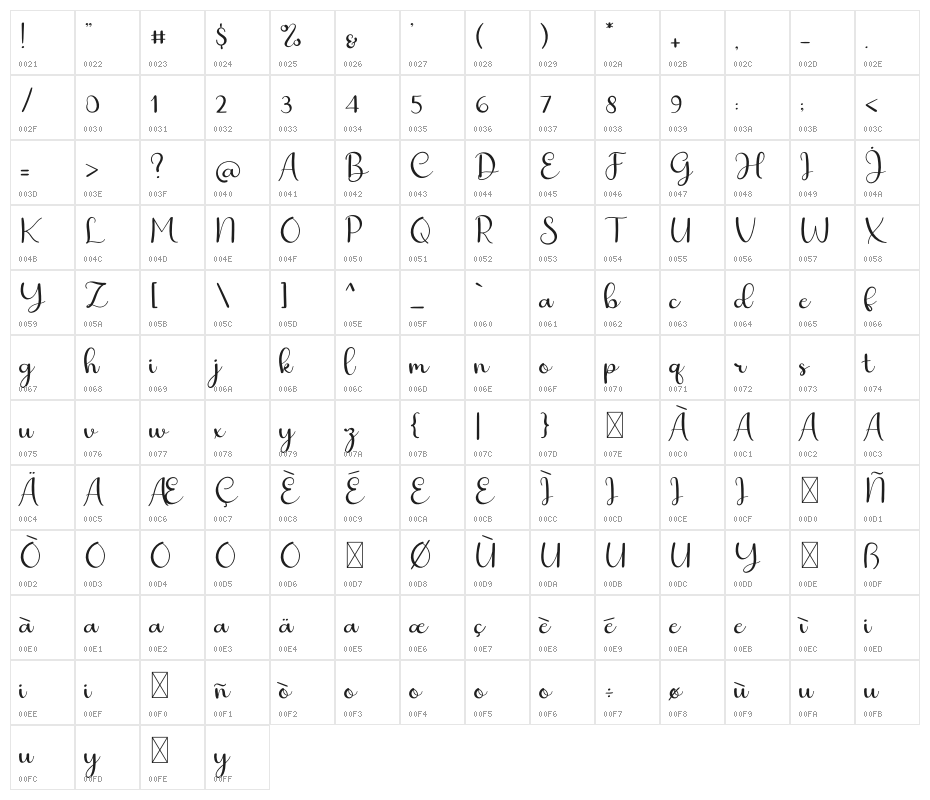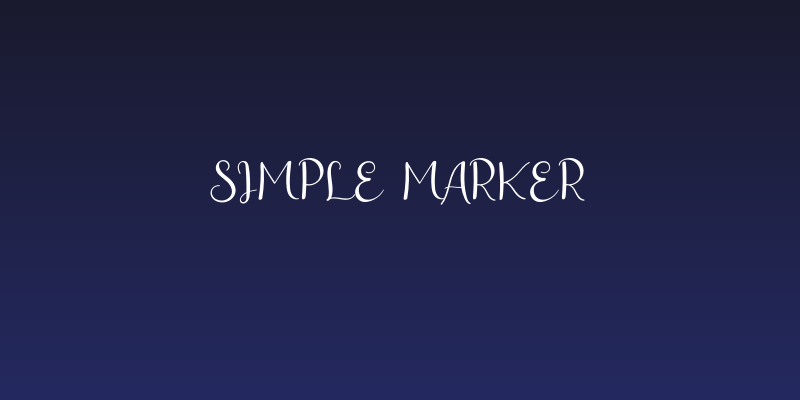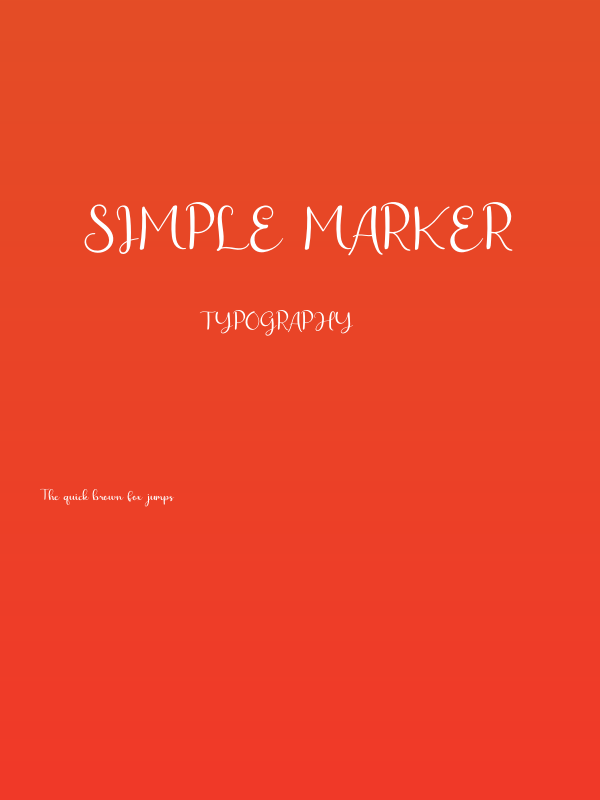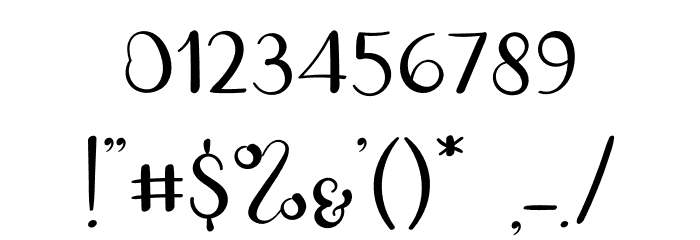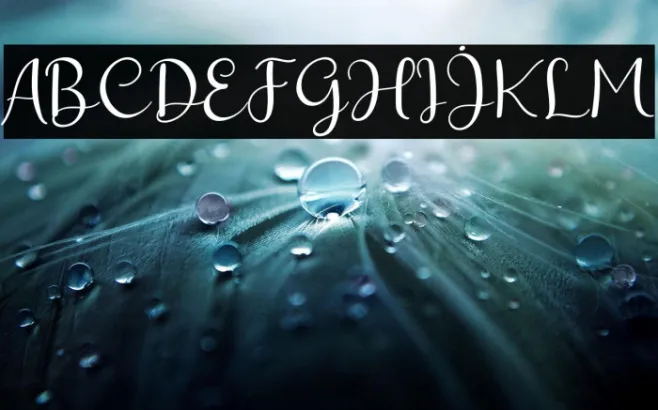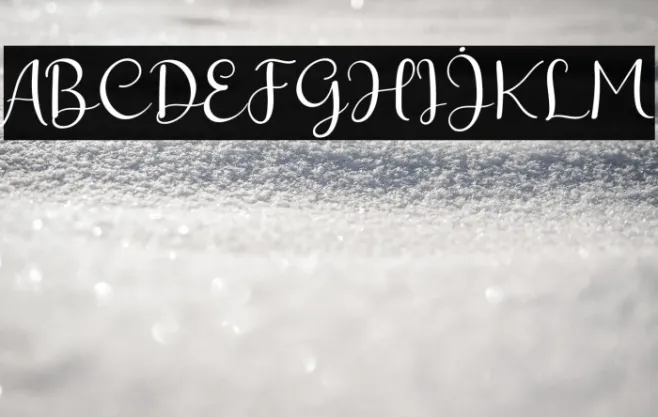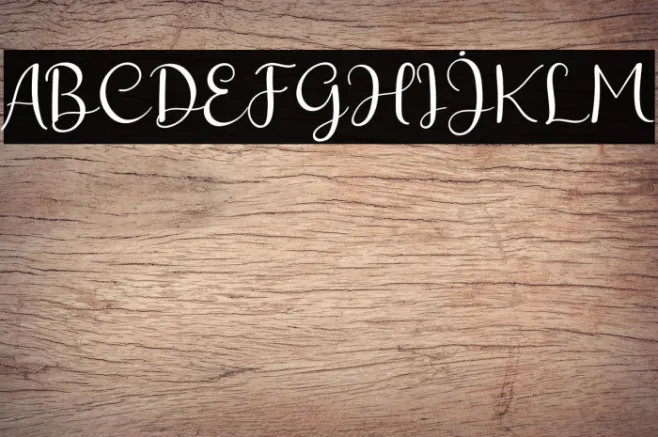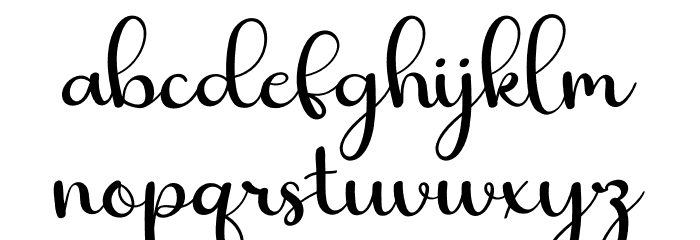
Simple Marker Font
Simple Marker Description
This font features a playful and casual handwritten style, characterized by its fluid and smooth curves. The uppercase letters are slightly more structured, maintaining a consistent height with gentle loops and swirls that add a touch of elegance. The lowercase letters are more freeform, with varying heights and playful tails that give a sense of movement and spontaneity. The numbers are clear and easy to read, maintaining the same playful style. Special characters are creatively designed, fitting seamlessly with the overall aesthetic. This font exudes a friendly and approachable vibe, making it suitable for a variety of informal and creative projects.
| Proposed Projects | Ideal for greeting cards, invitations, personal branding, and creative projects that require a friendly and informal touch. |